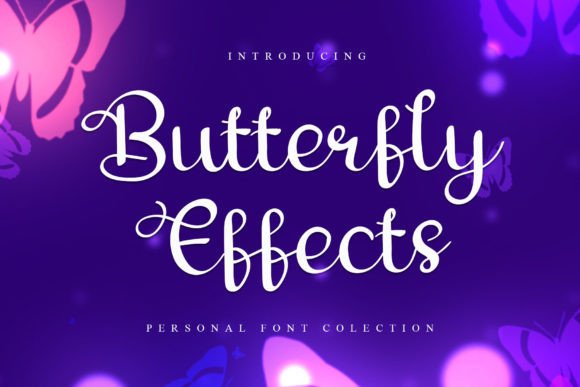
Unleash the captivating beauty of your words with Butterfly Effects Font, an enchanting journey into the realm of handwritten elegance. Inspired by the dynamic grace of a butterfly's flight, this font dances harmoniously across your designs, leaving a trail of stylish sophistication and enchanting allure.
Butterfly Effects Font is a dazzling script family that gracefully adorns any project with a touch of exquisite charm. Its mesmerizing variations in the baseline, meticulously crafted to replicate the natural flow of handwritten strokes, bring a touch of heartfelt authenticity to your creations. This remarkable font effortlessly adapts to a wide range of design endeavors, from the delicate intricacies of wedding invitations to the bold statements of billboards and logos. Its versatility extends to business cards, greeting cards, and any project seeking a touch of exquisite penmanship.
With Butterfly Effects Font, your designs transcend the mundane, becoming living expressions of your artistic vision. Its PUA encoding invites you to explore a world of boundless glyphs and swashes, empowering you to craft truly captivating masterpieces. Experience the transformative power of Butterfly Effects Font as it elevates your designs to new heights of elegance and charm. Let your words take flight, carried by the enchanting strokes of this font, and leave an everlasting impression that echoes the grace and allure of a butterfly's dance.
Embrace the artistry of Butterfly Effects Font and witness the transformation of your designs into captivating works of art. Allow your imagination to soar as you explore the endless possibilities offered by this remarkable font. Experience the joy of seamless creativity as you effortlessly weave words into enchanting visuals, igniting emotions and leaving a lasting impact on your audience. With Butterfly Effects Font, your designs will radiate an aura of sophisticated beauty and enchanting charm, captivating hearts and leaving an indelible mark on the world.